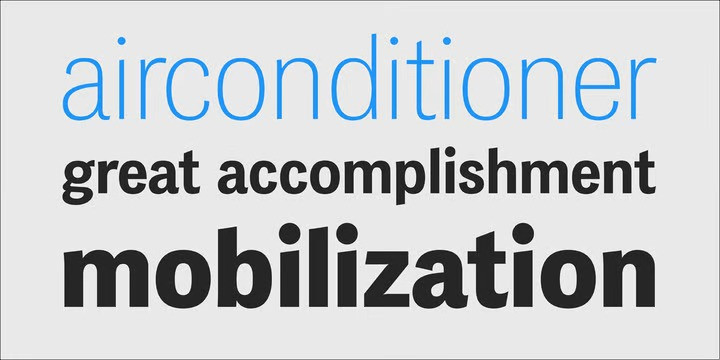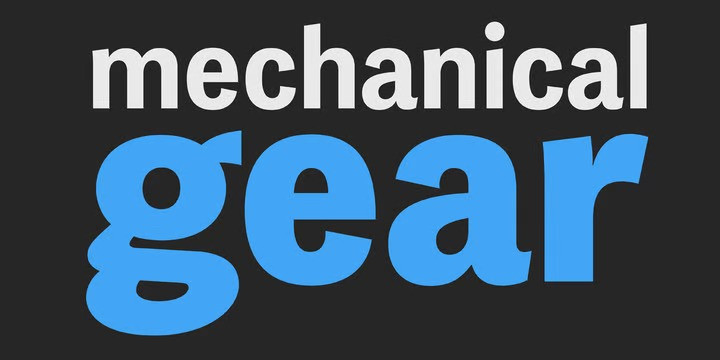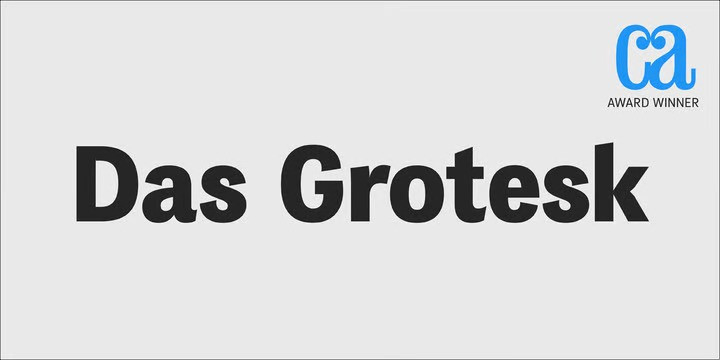
PF Das Grotesk Pro Font
How outstanding! PF Das Grotesk Pro Sans Serif Font Family. Das Grotesk was inspired by earlier nineteenth-century grotesques, but it is much more related to American gothic designs such as those by M.F. Benton. Due to their pure geometric structure, most grotesque typefaces tend to have a rather monotonous and lifeless appearance, thus failing to express the ideals of the modern creed.
Das Grotesk on the other hand is a lively design with several distinguishable characteristics which attract attention when set at large sizes, whilst they become subtle and blend evenly at small sizes, fostering a neutral identity.
This is a very legible and space-saving typeface with a narrow structure. It was designed with slanted curved ends and sheared terminals applied on several straight strokes. It has two-storey ‘a’ and ‘g’ but includes single-storey alternates.
The family consists of 14 weights ranging from Extra Thin to Black (including true-italics). It provides simultaneous support for Latin, Cyrillic and Greek and is loaded with several advanced typographic features such as small caps. Download its complehensive PDF Specimen Manual for further details.